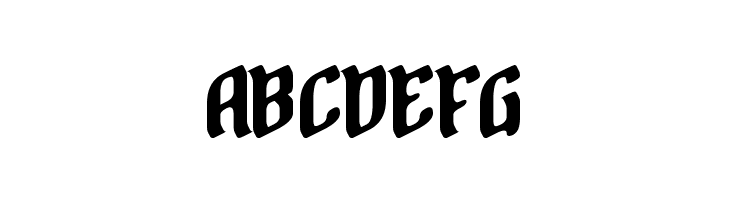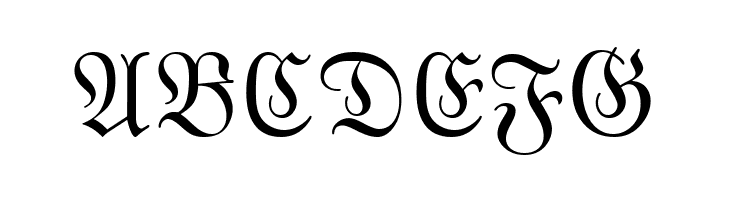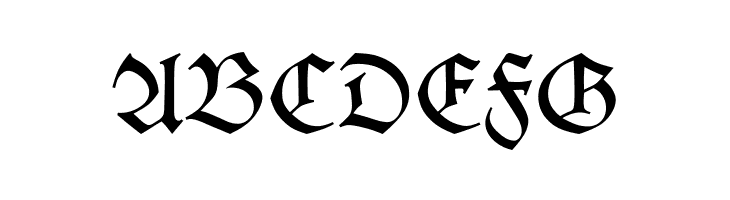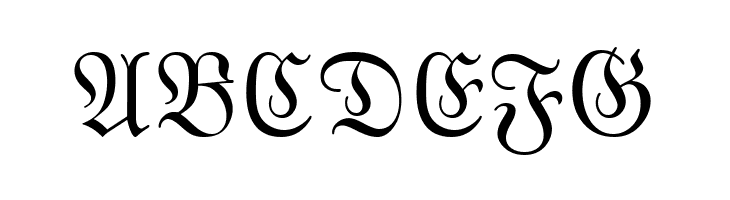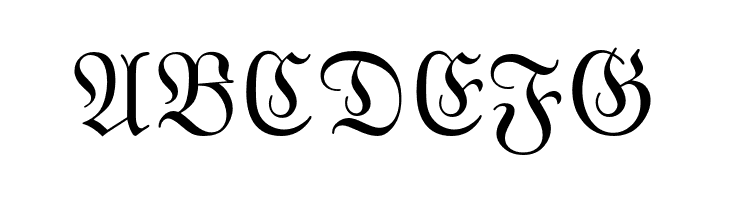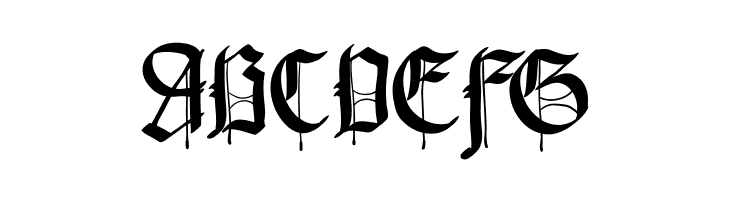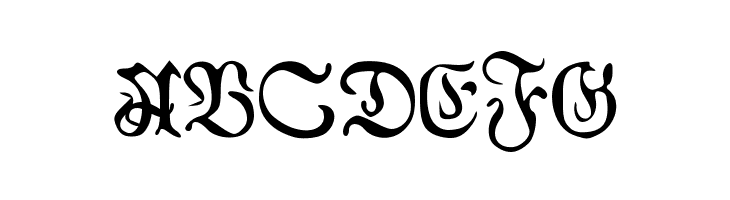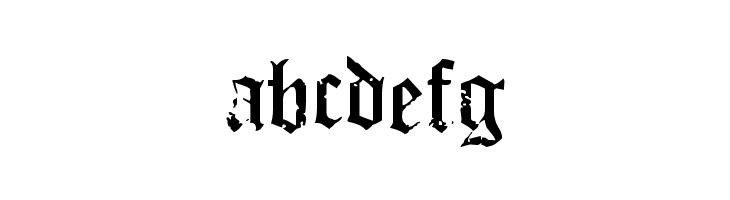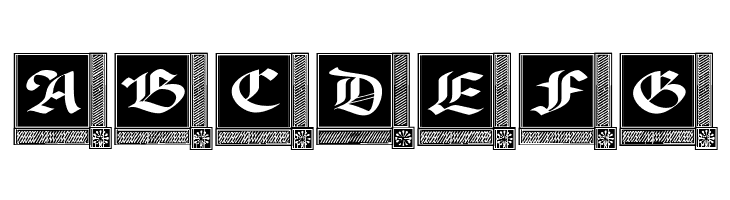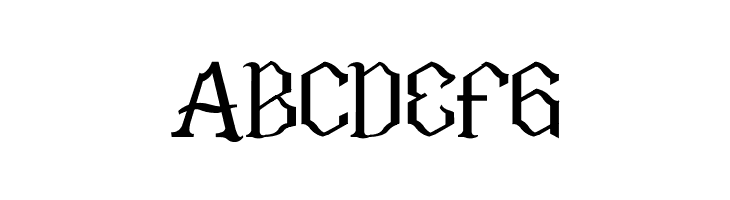
A traditional blackletter font with intricate, angular strokes and a medieval aesthetic.
A classic blackletter font with intricate, angular strokes and a medieval appearance.
A bold blackletter font with high contrast and intricate detailing.
A bold, angular font with blackletter influences and modern flair.
A traditional blackletter font with intricate detailing and gothic elegance.
A traditional blackletter font with ornate and angular letterforms.
A traditional Blackletter font with ornate, angular letterforms and high contrast strokes.
A traditional blackletter font with ornate, gothic letterforms and decorative flourishes.
A classic Blackletter font with ornate, angular letterforms and a medieval aesthetic.
A decorative Blackletter font with ornate, gothic styling.
A classic Blackletter font with intricate, angular strokes and decorative flourishes.
A traditional Blackletter font with intricate detailing and a medieval flair.
A dramatic Blackletter font with intricate curves and sharp angles, exuding classic sophistication.
A bold, ornate blackletter font with a medieval flair.
An ornate blackletter font with intricate flourishes and bold strokes.
A bold blackletter font with intricate Gothic detailing.
A bold, blackletter font with sharp, angular lines and medieval flair.
An ornate gothic font with elaborate swirls and bold blackletter elements.
A decorative blackletter-style font with intricate flourishes and sharp, angular strokes.
A bold, decorative blackletter font with intricate woodcut-style details.
A traditional blackletter font with ornate, angular designs and Gothic flourishes.
A bold, blackletter font with sharp, angular lines and a medieval aesthetic.
A bold, condensed blackletter-style font with a dramatic and impactful design.
A bold, italicized font with a modern twist on traditional blackletter styles.
A bold, angular blackletter font with a modern twist.
An ornate Blackletter font with gothic and medieval influences.
A bold blackletter font with a gothic, medieval style.